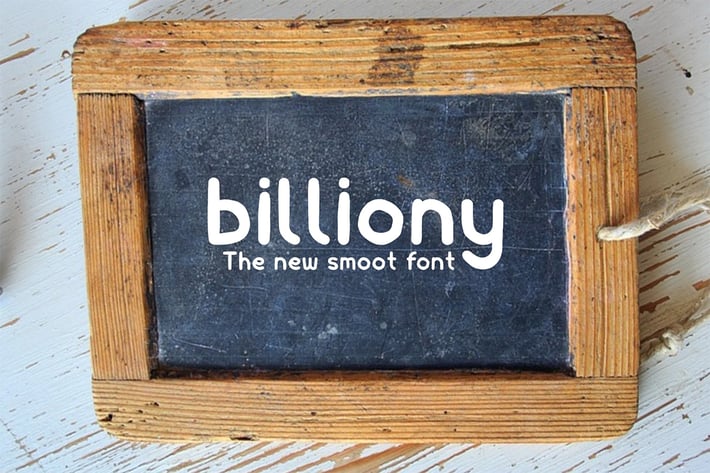
Billiony Typeface Font
Billiony is a handlettering vintage font inspired by handmade lettering and typography. Itβs so handmade modern vintage textured display typefaces.